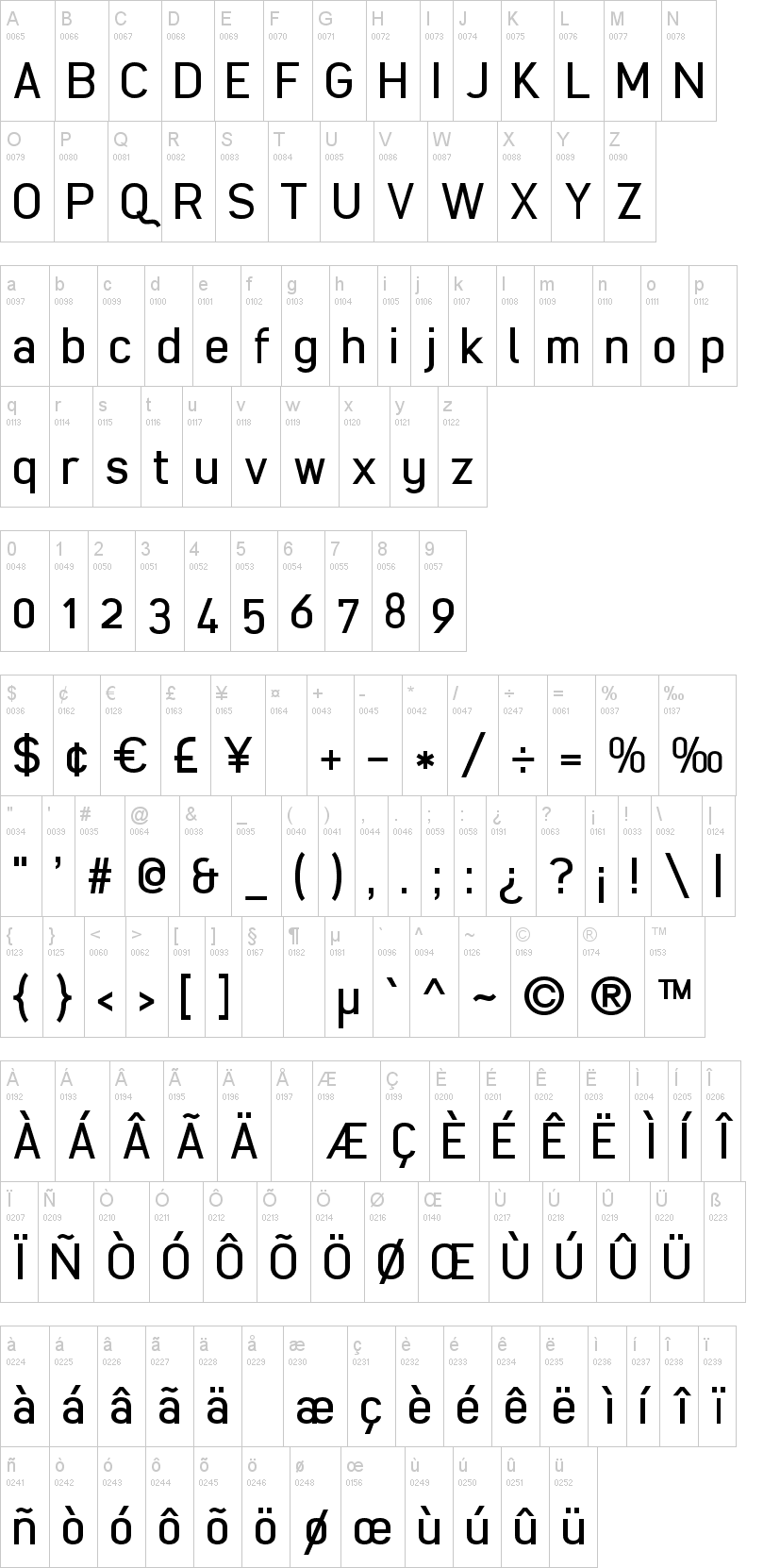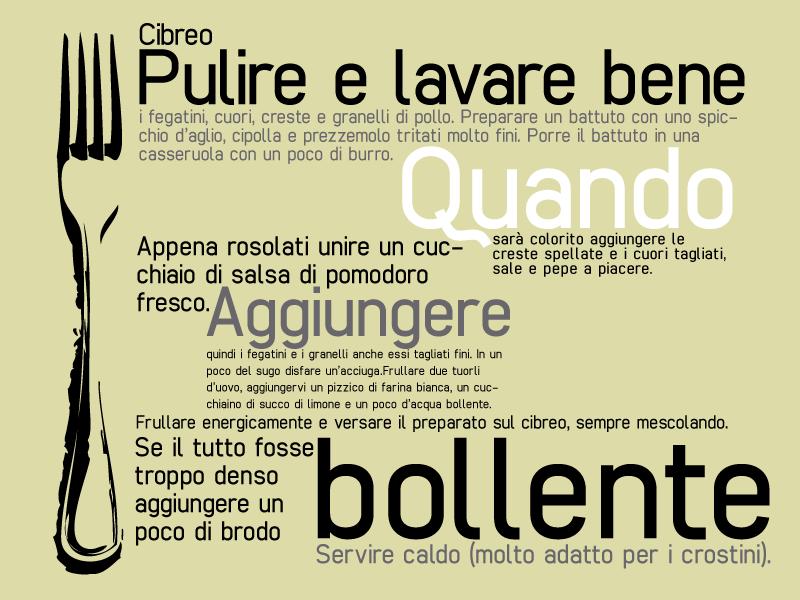
Шрифт Cibreo
Cibreo is geometric sans serif typeface, made to be extremely clear and readable while keeping a modernist, straight look.
Taking its name from a traditional Italian recipe, it aims to be the added ingredient to make really unique texts blocks and savoury designs.